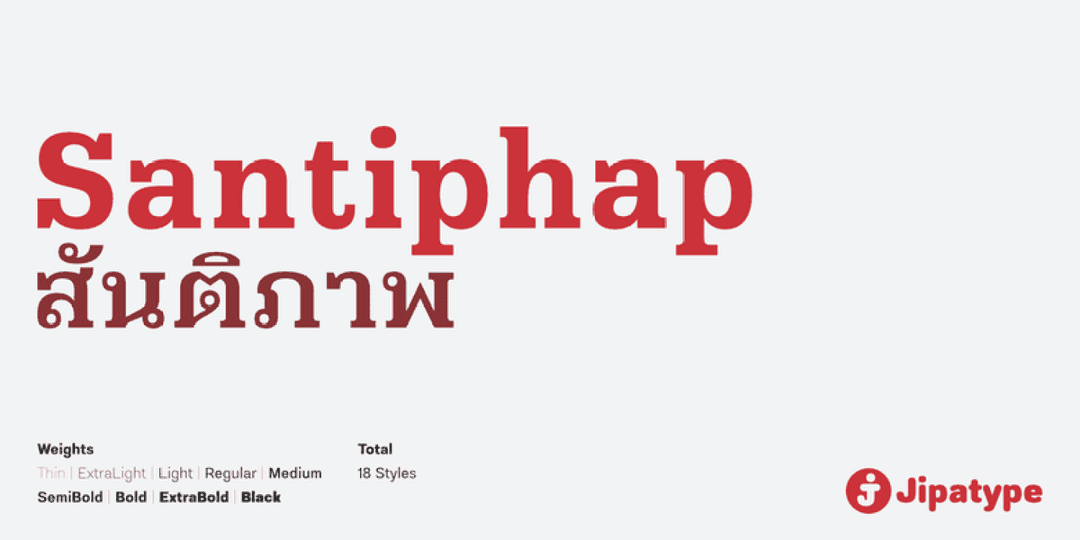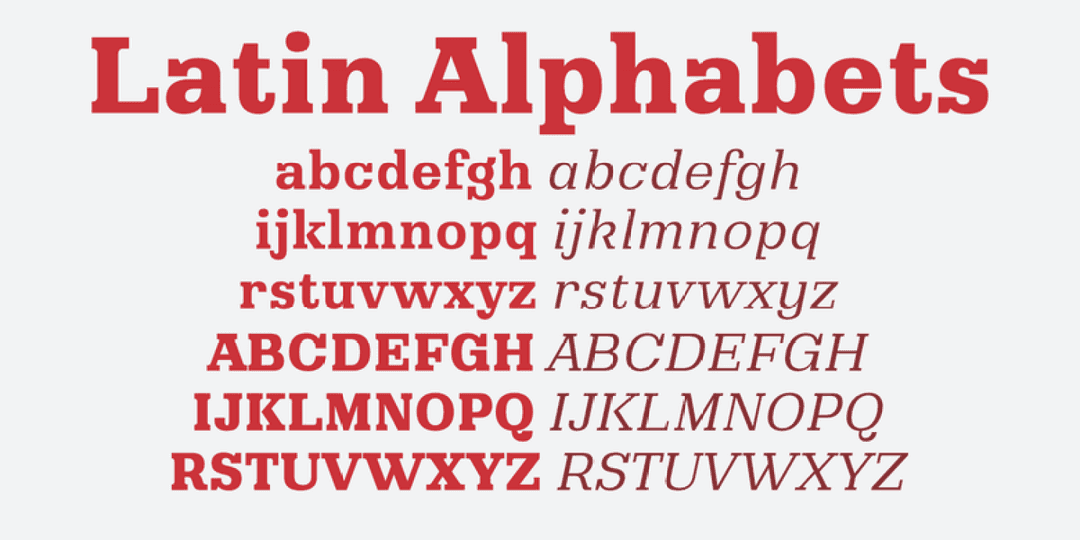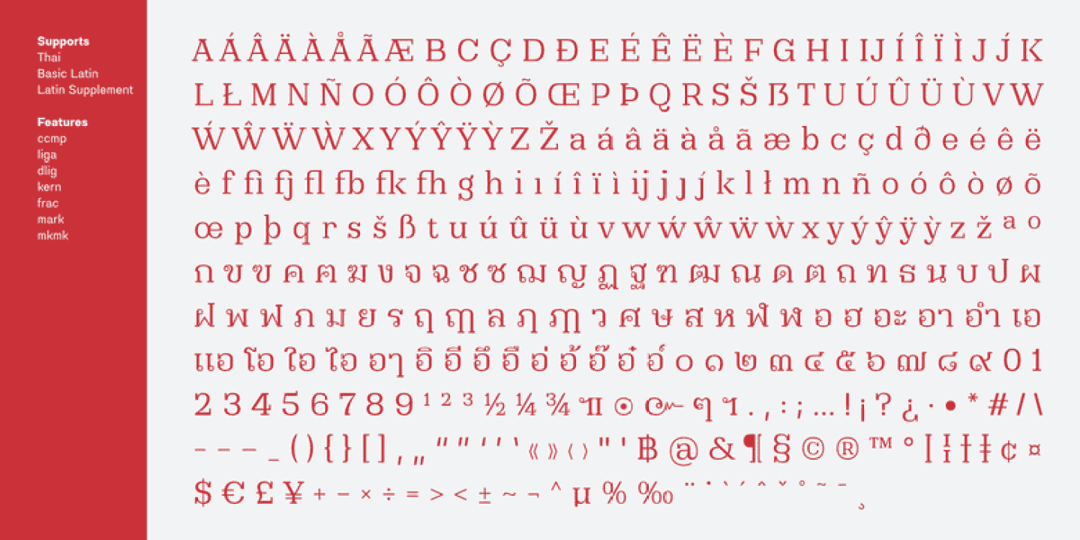
As I was creating my font series there was international conflict at play at that time, so I chose a serif font with Thai characters to match dessert-related dessert and modern layout designs… Therefore, Peace became its name.